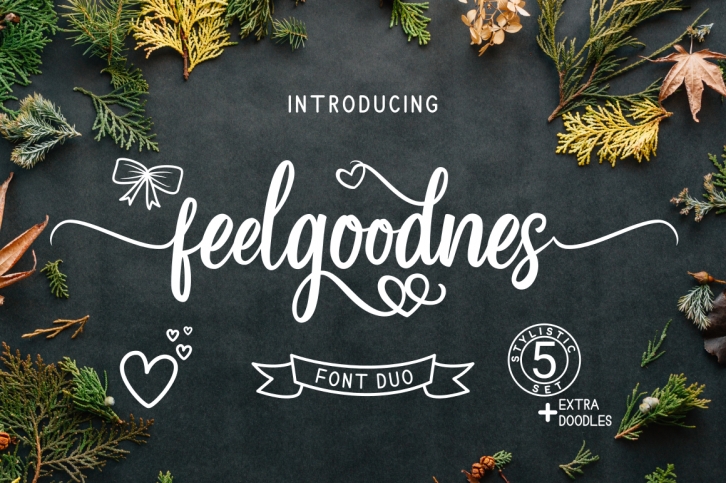
Feelgoodnes is a trendy and unique font with an authentic style. It was designed by MakashiCreative and it's a great choice for creative people who need such a font. It was released on June 27, 2019 and the file size is 18.68 MB. Feelgoodnes will add an organic vibe to any design idea!